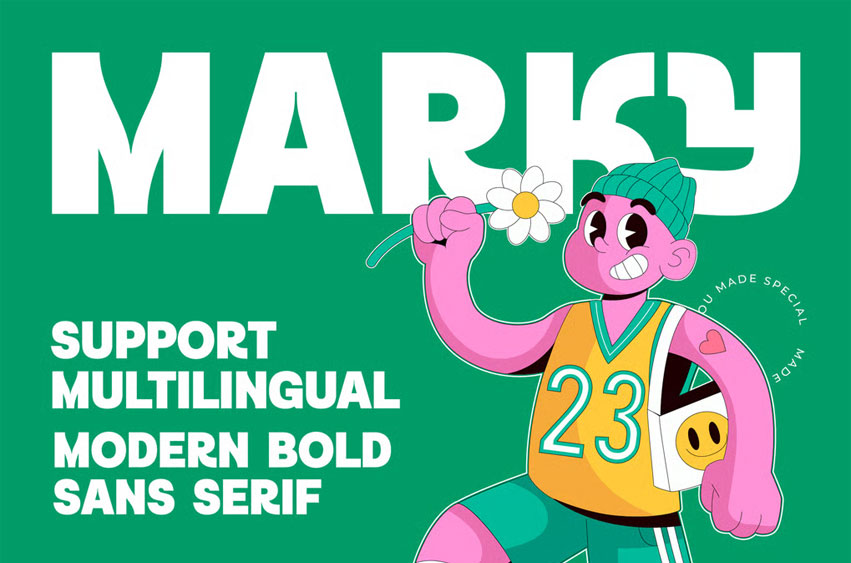
Marky Font Modern Sans Serif font is a unique, modern luxury font with a luxury, elegant, aesthetic, and geometric style.
It is a display font perfect for branding projects, logos, social media posts, product packaging, labels, etc.